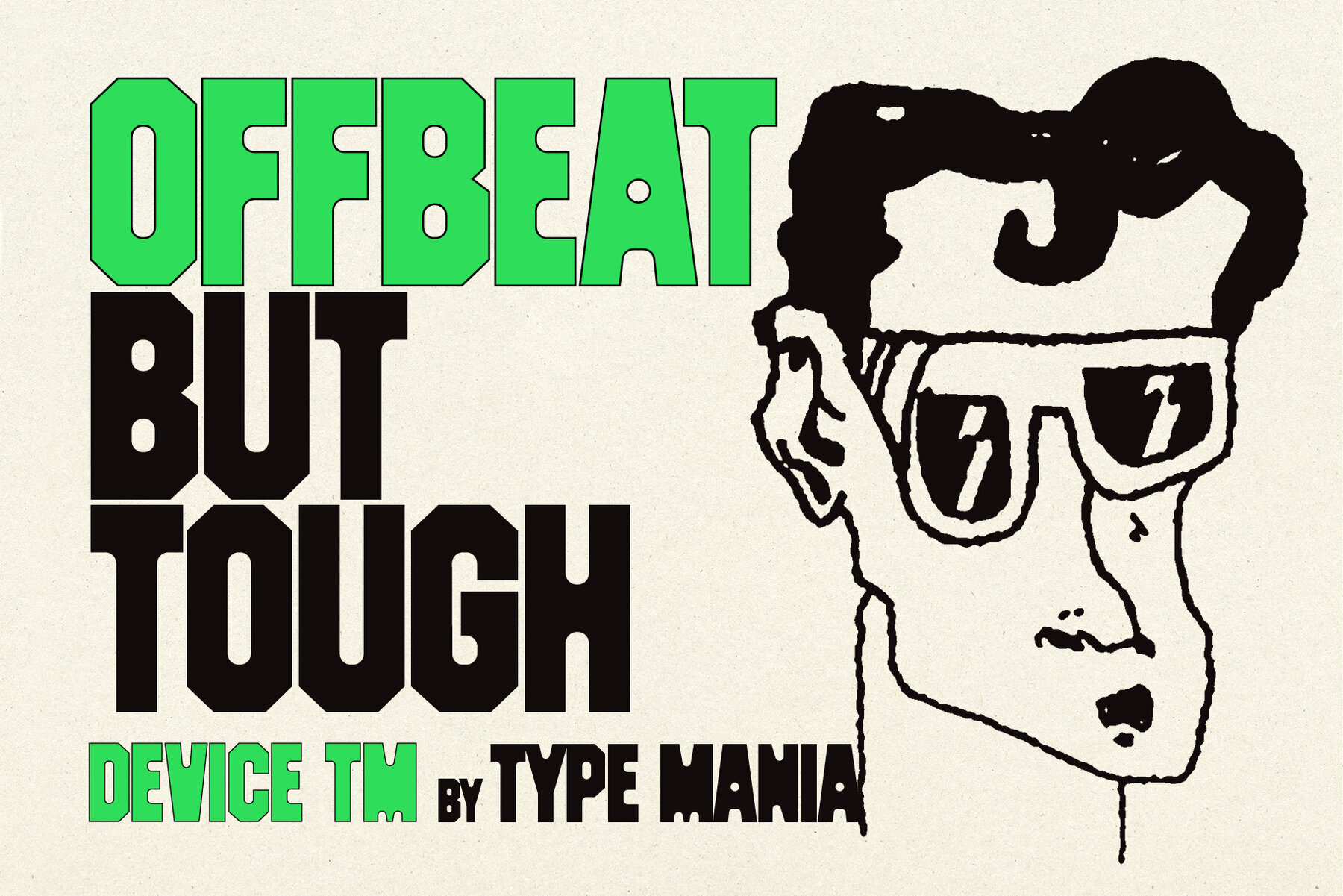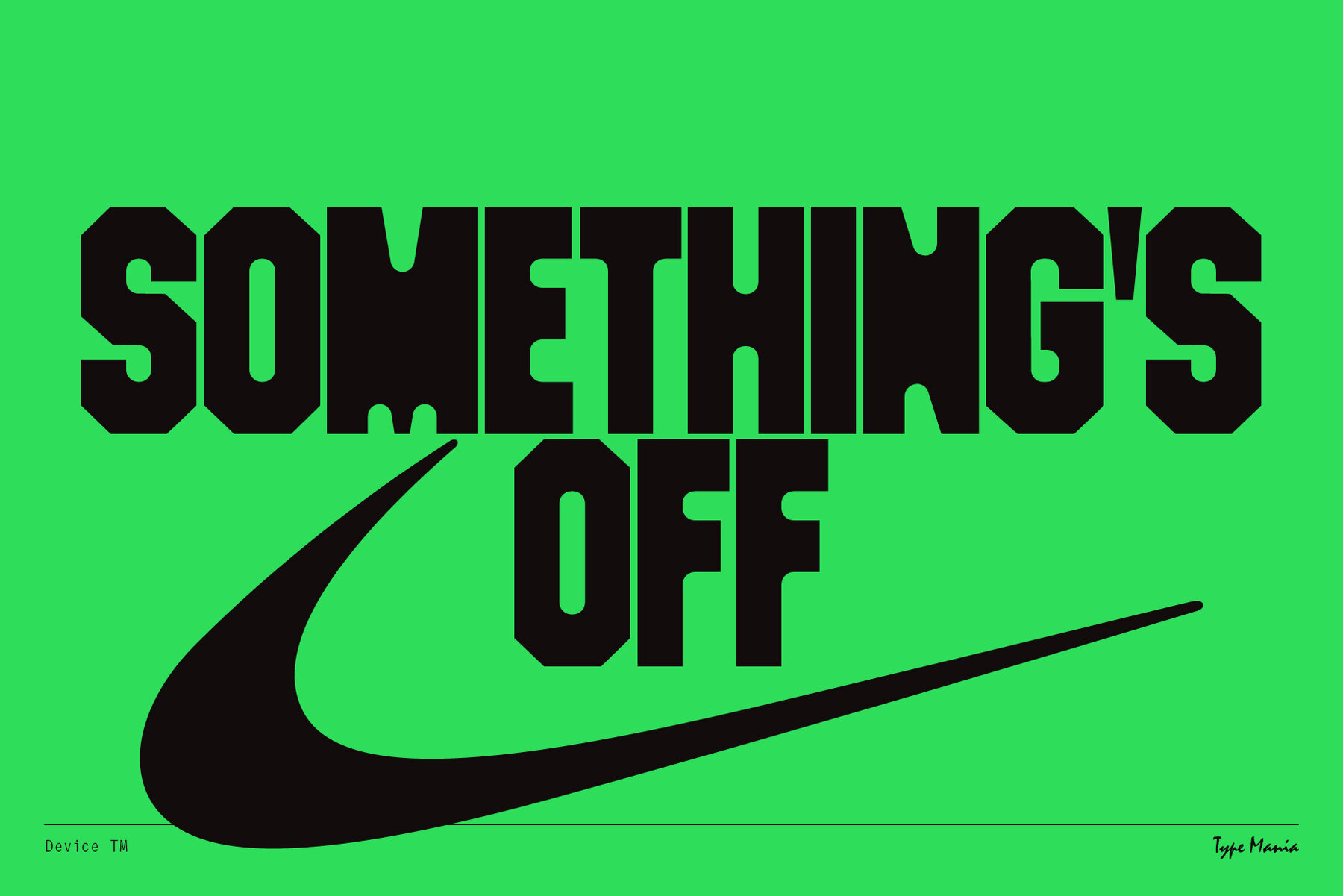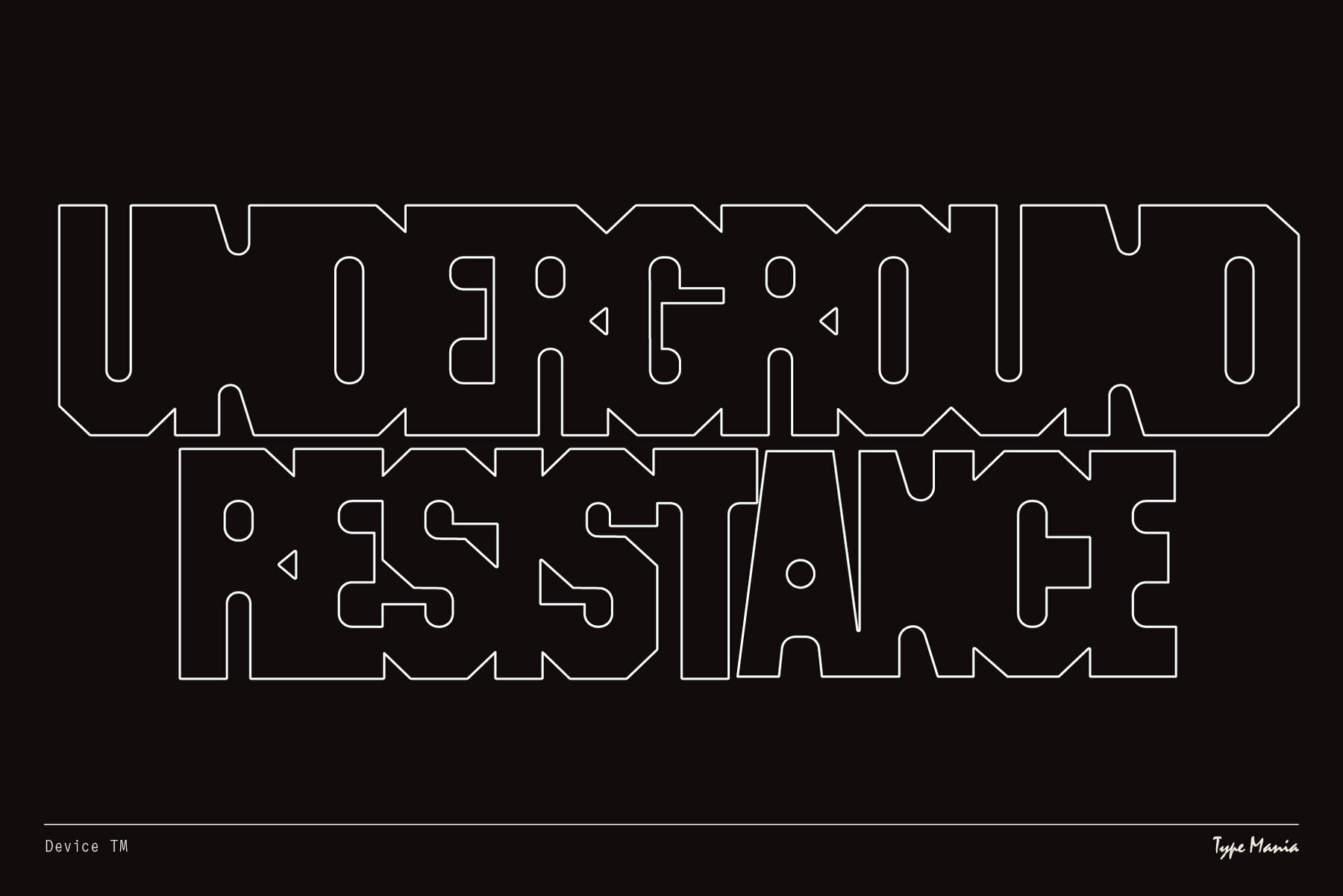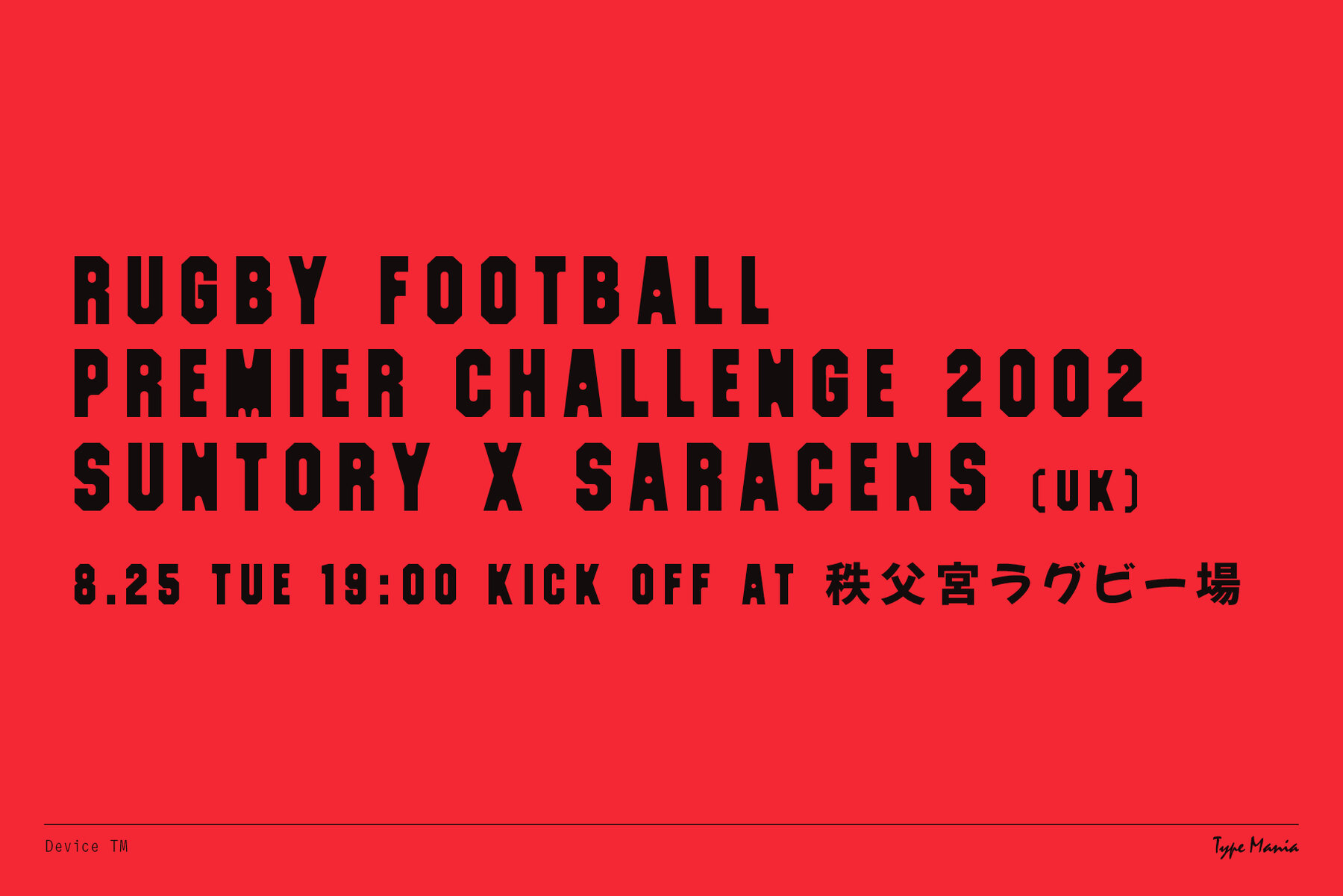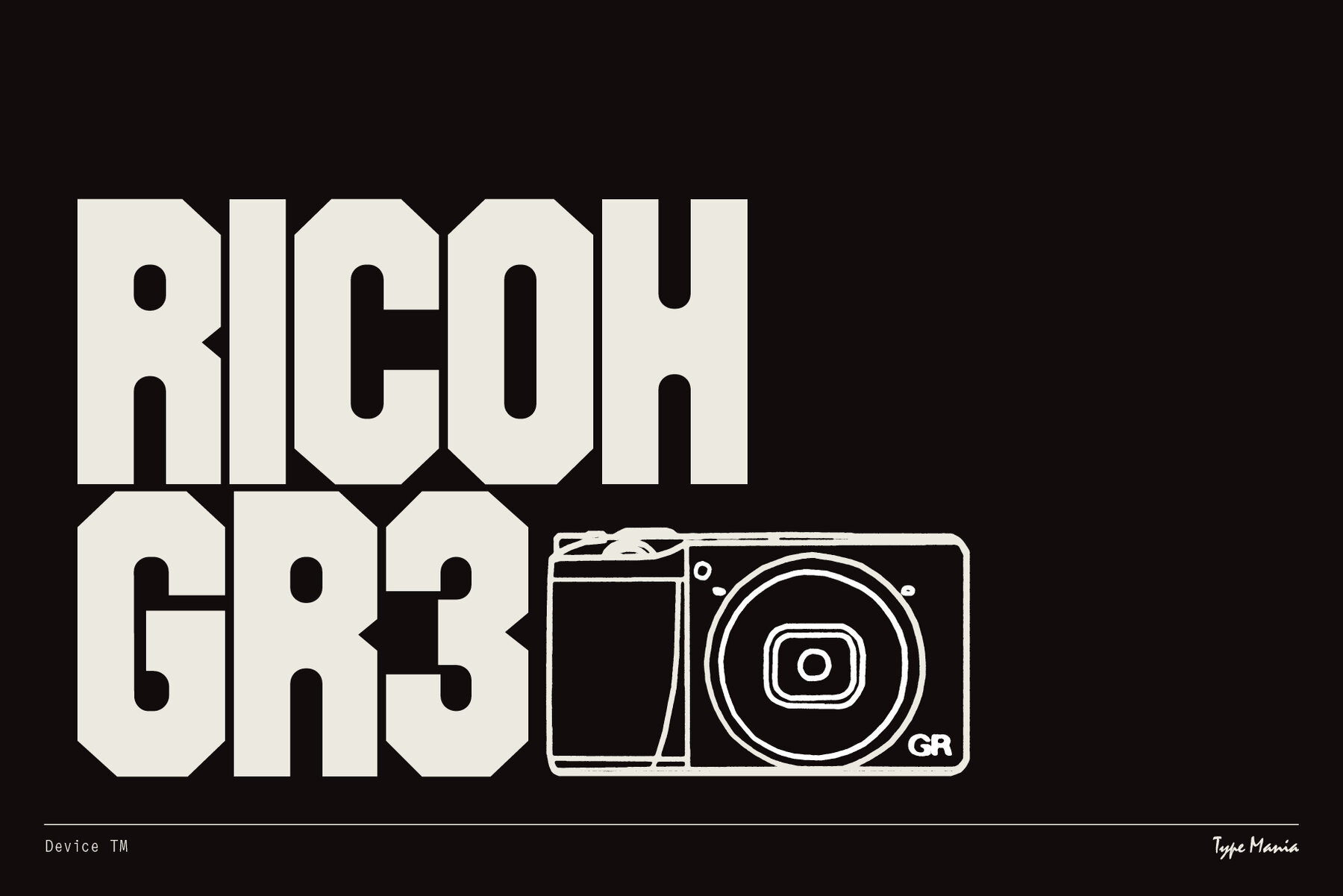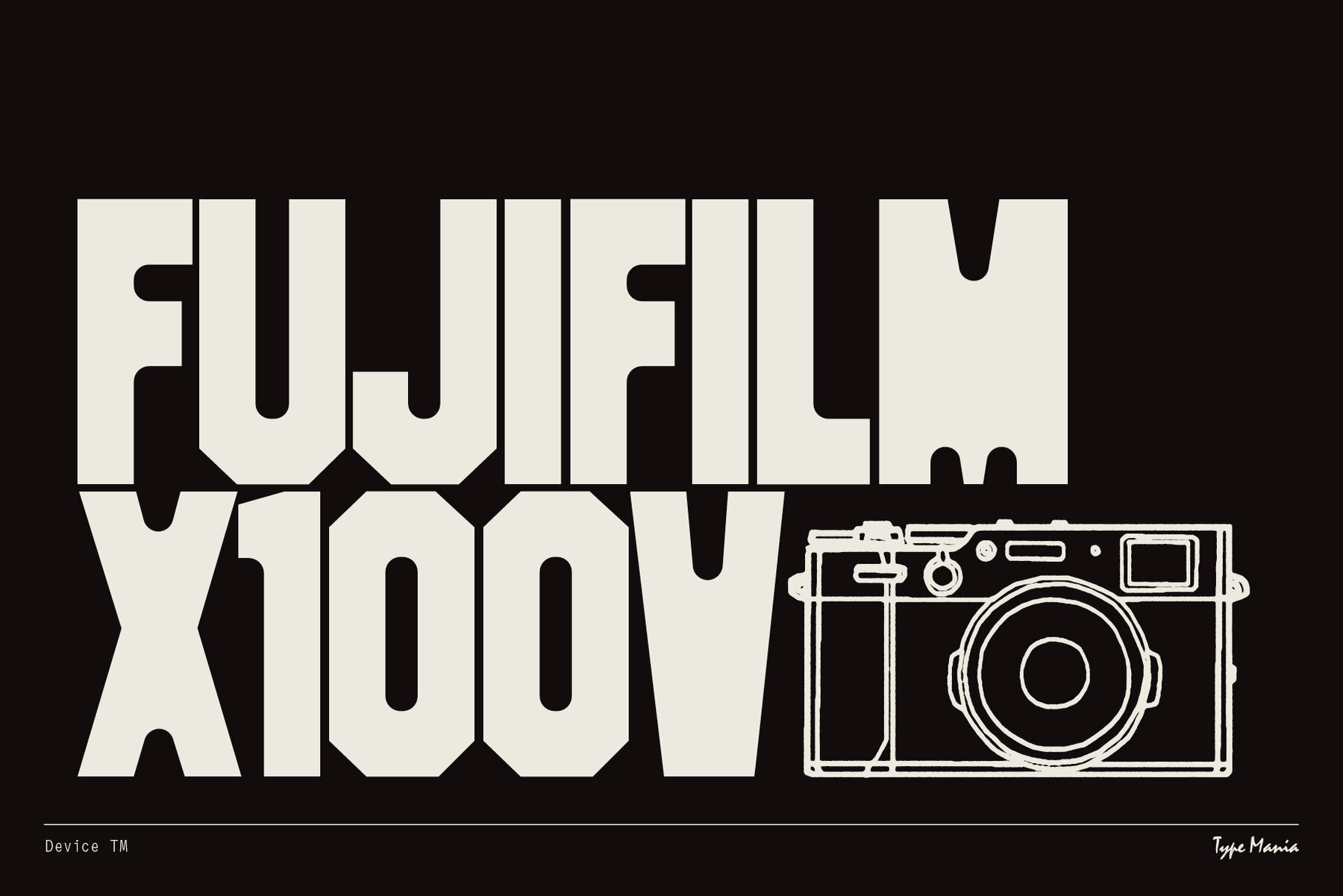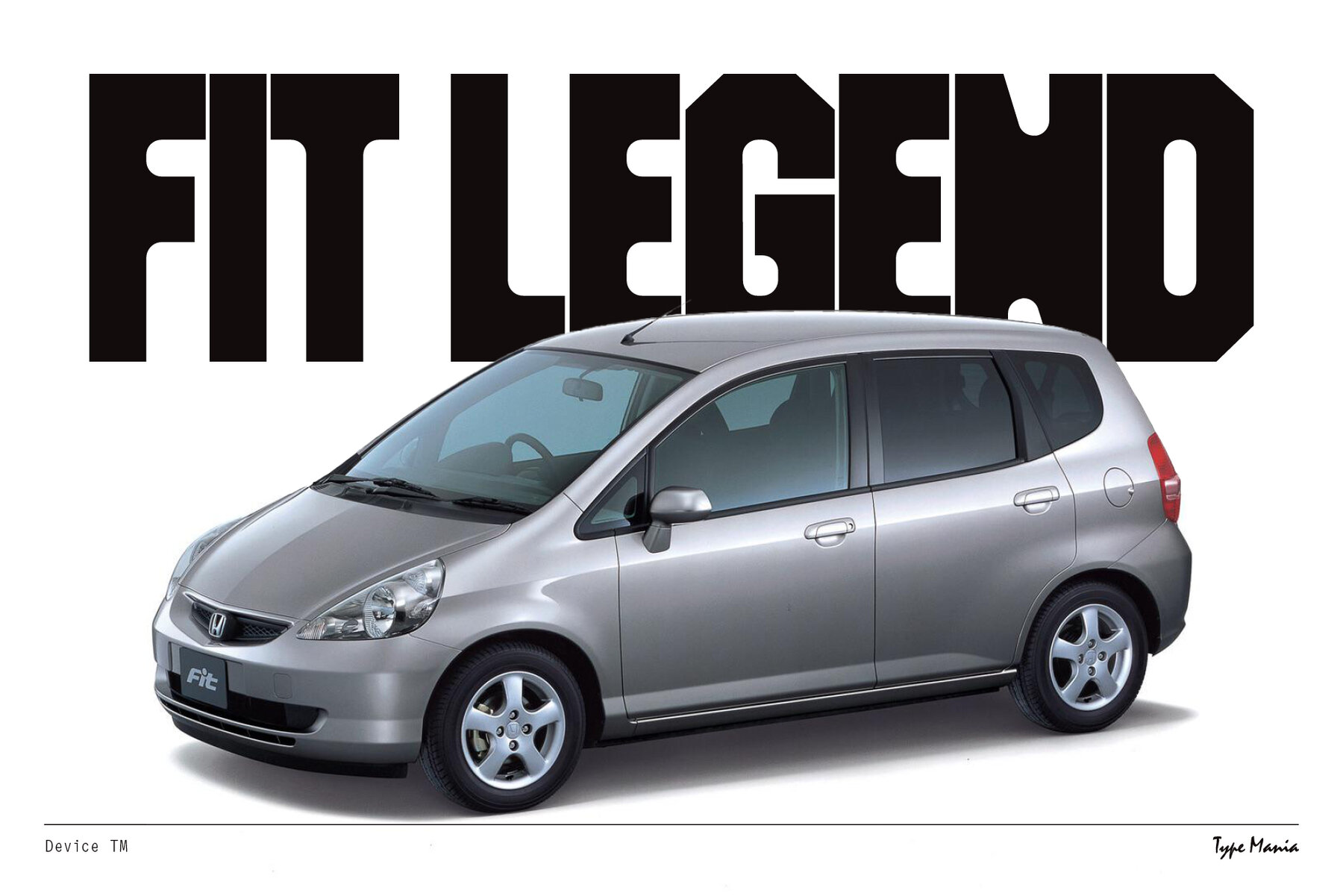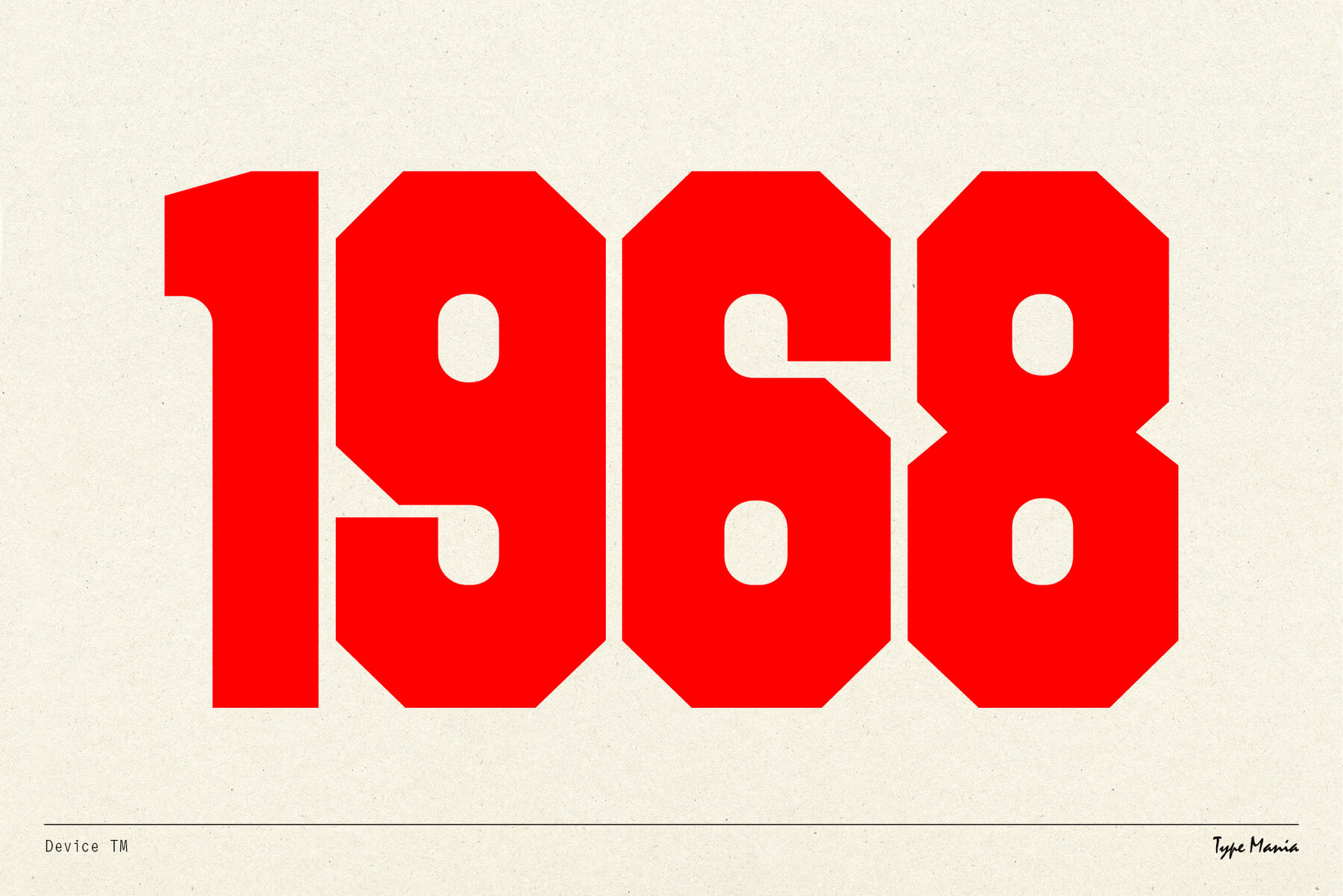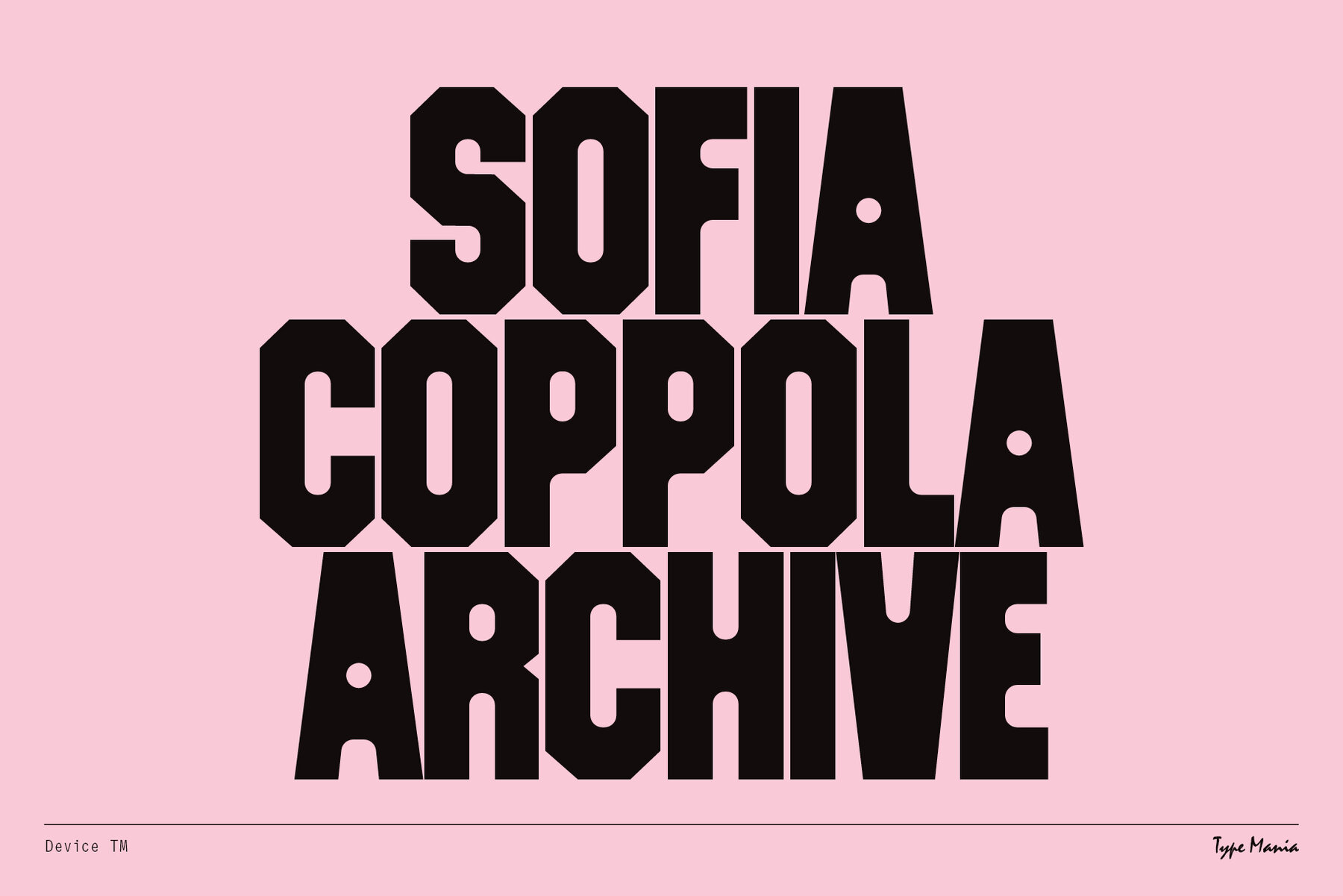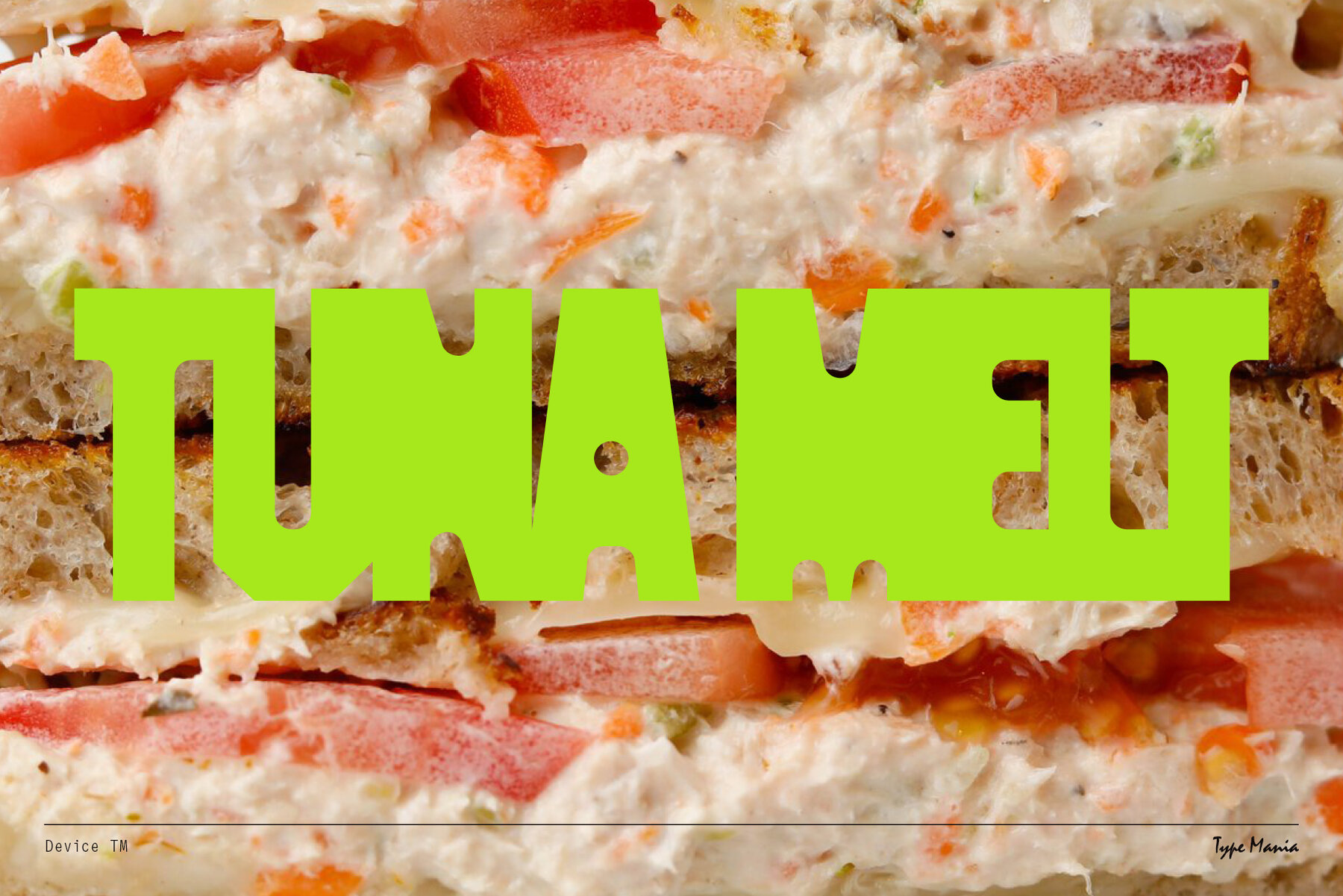
Device TM Font
Device TM Regular
Device TM – unapologetically bold, fiercely quirky. With its edgy demeanor and unwavering confidence, Device TM is perfecto for any flyer, poster, t-shirt graphic; what have u. Let Device TM infuse your designs with its unconventional charm and offbeat energy, leaving a lasting impression on all who encounter it.